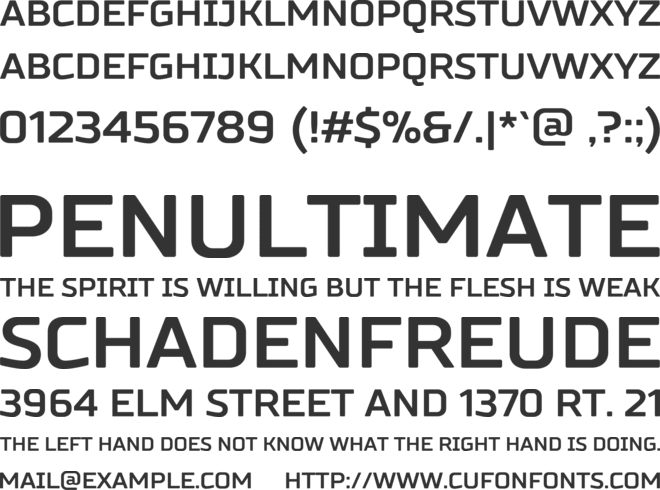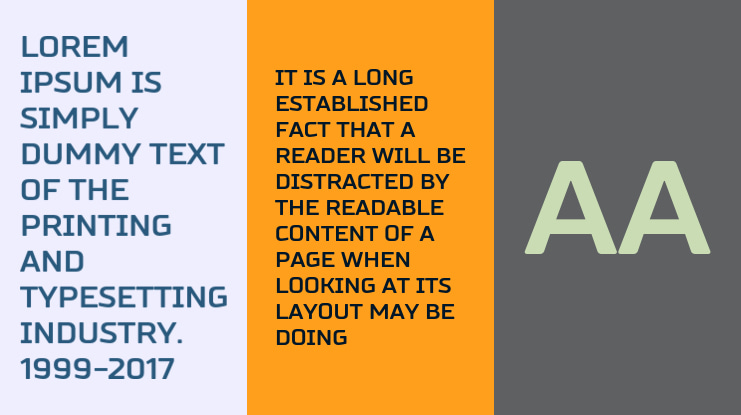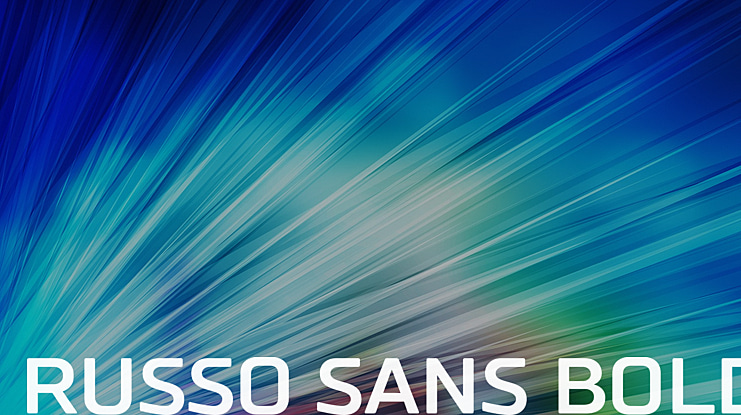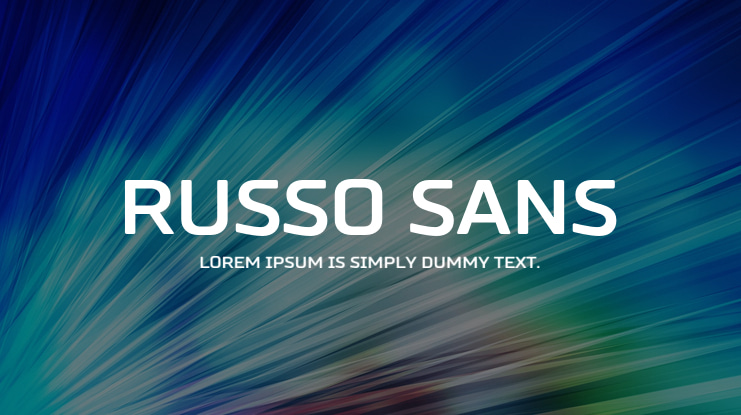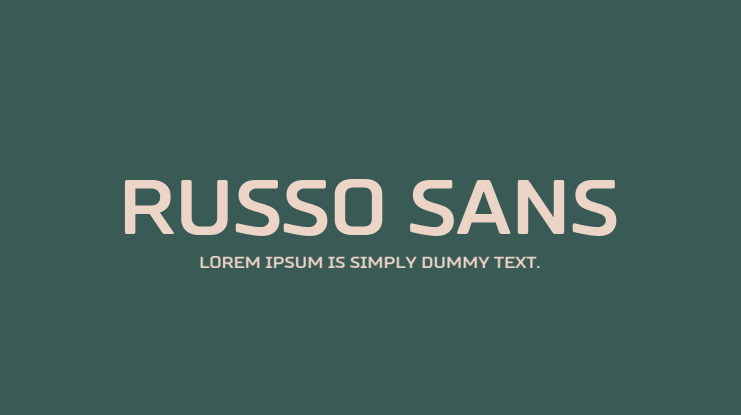
Russo Sans Font
Russo Sans is a modern extension of the legendary free font Russo (http://www.1001fonts.com/russo-one-font.html). The font became more trendy and smooth. Now this is a text font family. We added in this font family new typefaces and support for many codepages and languages.The fonts are very convenient to use in web, mobile apps and in desktop computers. The font family Russo Sans contains many languages and alphabets, as well as compatible with other TypeType fonts.For lowercase letters and other weights, check out the TT Russo Sans (http://www.myfonts.com/fonts/type-type/tt-russo-sans/) payfont family.